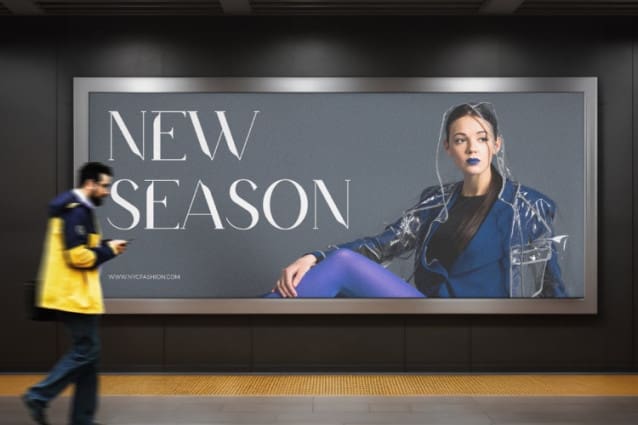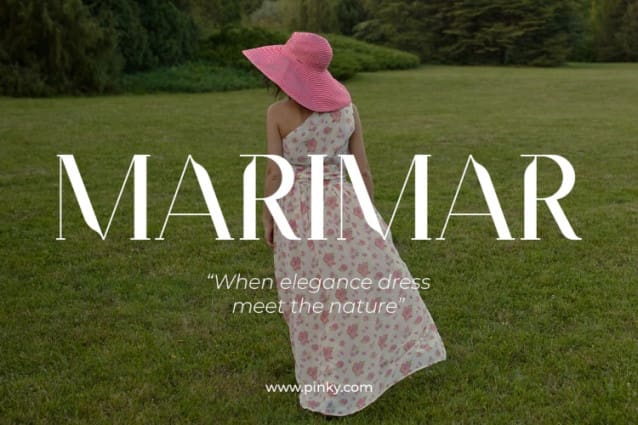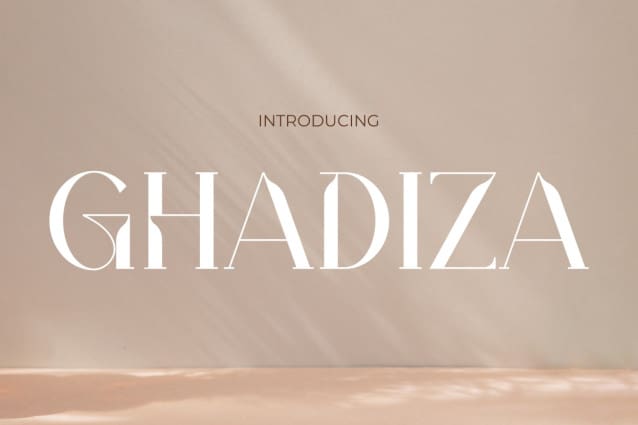
Ghadiza Font
Ghadiza Font, the epitome of elegance, femininity, and fashion-forward design tailored specifically for the cosmetics industry. With its delicate yet confident strokes, GHADIZAFont encapsulates the essence of sophistication, making it an ideal choice for brands seeking to convey a sense of refined beauty and style. This font seamlessly merges graceful curves with modern aesthetics, evoking a sense of luxury and allure that perfectly complements cosmetics branding campaigns and product packaging.
GHADIZA Font exudes a timeless charm that resonates effortlessly with the world of cosmetics and beauty. Each letter is meticulously crafted to reflect a strong feminine identity while embodying the latest trends in fashion. Whether used for product labels, promotional materials, or digital content, GHADIZA Font adds a touch of elegance and sophistication that elevates any cosmetic brand’s visual identity, ensuring it stands out in a competitive market and leaves a lasting impression on discerning consumers.